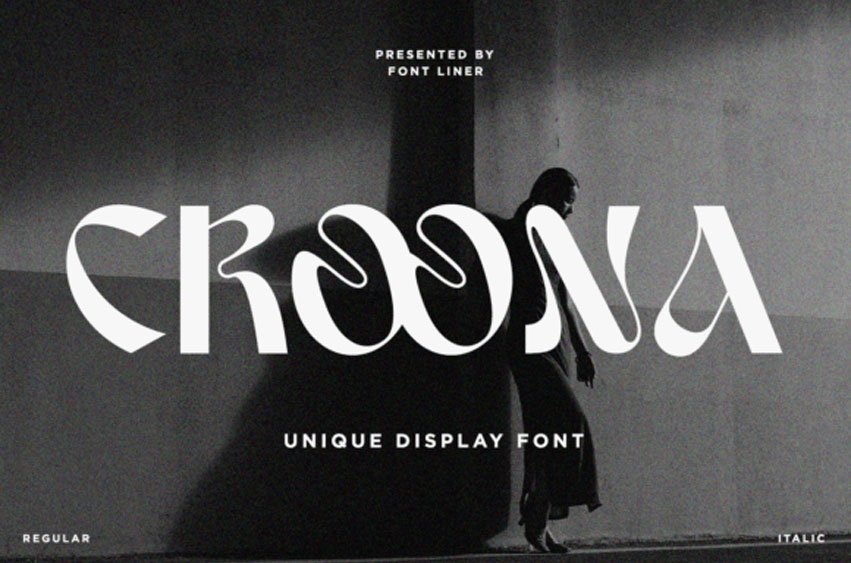
Croona Font is a cute and quirky serif font. It will add an incredibly joyful touch to your designs.
Add this beautiful display font to each of your creative ideas and notice how it makes them stand out!